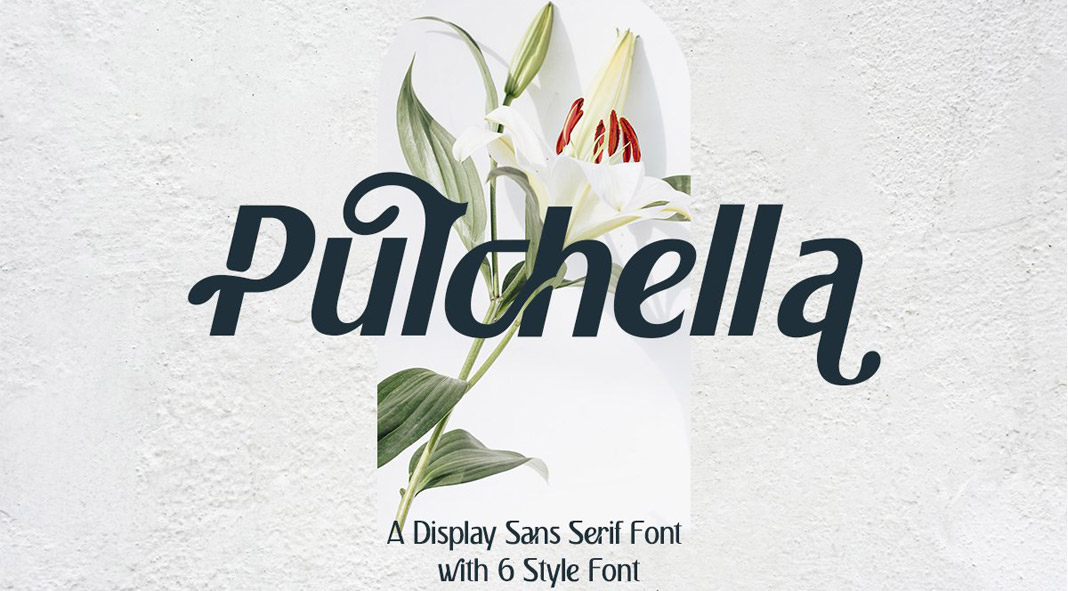
Check out Pulchella, a typeface well suited for logos, eye-catching titles, and various branding projects.
Created by Mevricks Studio, Pulchella is an elegant and quite unique font family. It can be used for plenty of projects including logo design, titles, branding, social media, packaging, clothing, just to name a few. You can also combine this typeface easily with other styles easily. Pulchella comes with numerous typographic features including alternates and swashes.